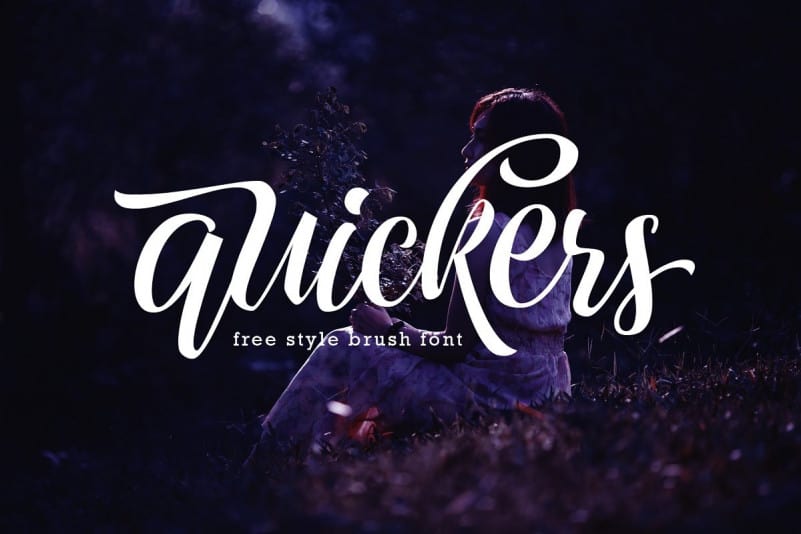
Quickers Script Font Free
Quickers Script Font is a gorgeous script font. Naturally made by handwriting, the script font offers a hand made like feel into your creative design. This font is designed and shared by Arterfak Project. It’s a solid brush font who inspired from craft movement and brush lettering. You can use Quickers Typeface as a logo design, logotype, label, quotes, headline, poster, apparel, insignia, badges, invitation, even print design.
Quickers Script Font, comes with many variation of characters that allows you to create dynamic lettering style. The OpenType features can be accessed by using OpenType panel such as Adobe Illustrator, Adobe Photoshop, or Adobe InDesign. Also you can simply copy-paste in Font Book (from Mac) and Character Map (from Windows)